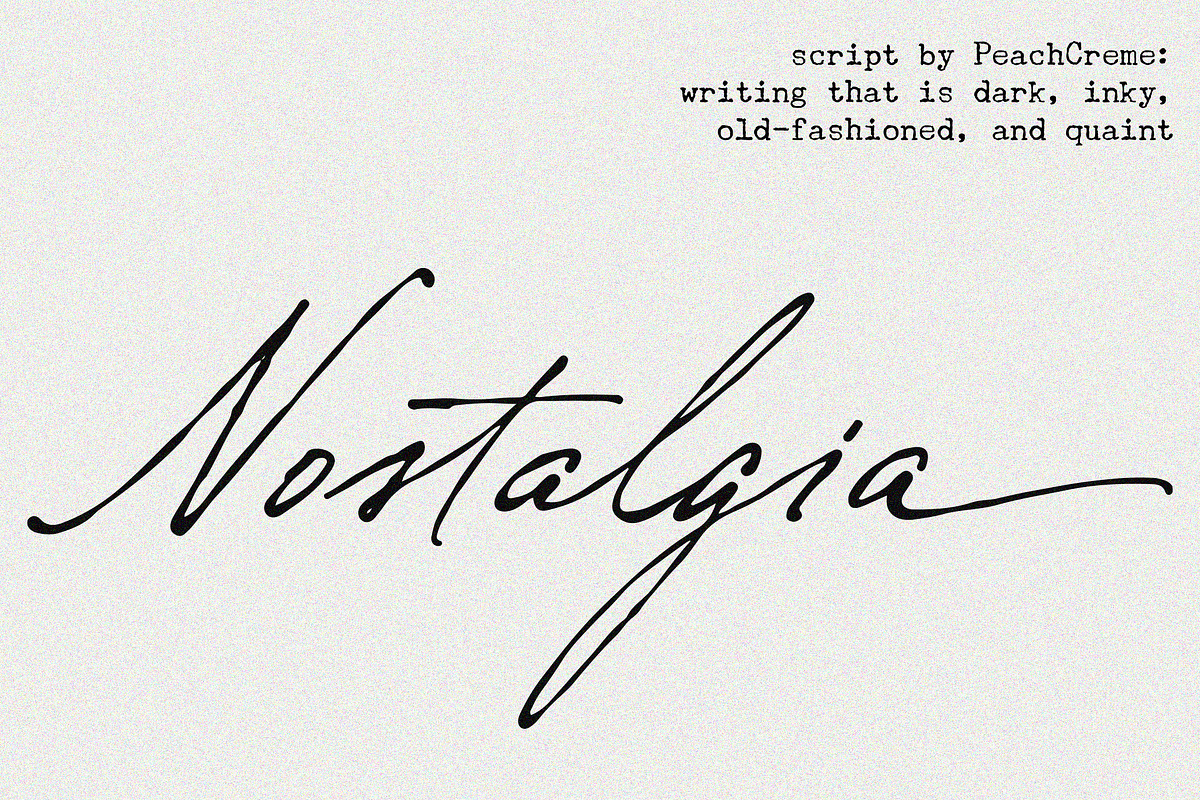
The Nostalgia font brings a bold and captivating dark vintage style that stands out for its simplicity and readability. Inspired by inky handwriting with a natural flow, this font combines traditional charm with modern usability, making it highly versatile for many creative projects. Whether you’re designing wedding stationery, crafting stylish Instagram quotes, or building contemporary logos, Nostalgia delivers a perfect balance of artistic flair and professionalism.
Distinctive Design Rooted in Hand-Drawn Authenticity
The hallmark of Nostalgia is its hand-drawn character set, which captures the essence of authentic penmanship. The font’s lowercase letters are enhanced with stunning starting and ending swashes, adding a graceful elegance to any text. This unique feature not only enhances the visual appeal but also allows designers to convey a sense of personal touch and nostalgia. The flow and style evoke the charm of traditional handwriting, while ensuring clarity in digital and print formats.
Versatile Application Across Creative Projects
Nostalgia’s stylistic versatility makes it an invaluable choice for a wide range of design needs. Its legible structure fits beautifully on wedding invitations, giving your special day invitations a heartfelt, timeless feel. The font’s vintage mood is perfect for contemporary logos seeking to blend history and modernity, and its readability ensures eye-catching headlines and impactful titles. Moreover, Nostalgia is an excellent choice for packaging design, helping brands communicate authenticity and style with every product presentation.
Designed for Creators Who Value Handcrafted Quality
If you’re a designer or enthusiast who appreciates the beauty of hand-drawn lettering, Nostalgia offers a treasured resource. Its traditionally styled characters provide a genuine, high-quality aesthetic that enhances the authenticity of your projects. Every headline, post, or packaging detail styled with Nostalgia benefits from a touch of nostalgia itself—a timeless connection to classic craft infused with modern function.
Conclusion: Make Your Projects Stand Out with Nostalgia
In summary, the Nostalgia font combines a dark vintage aesthetic with practical usability. It actively elevates your creative outputs by adding depth, elegance, and a personal touch. Whether applied to wedding stationery, social media content, branding, or packaging, this font duo offers robust versatility and undeniable charm. Embrace the warm, flowing lines of Nostalgia to produce memorable, visually compelling designs that speak to tradition and contemporary style alike.